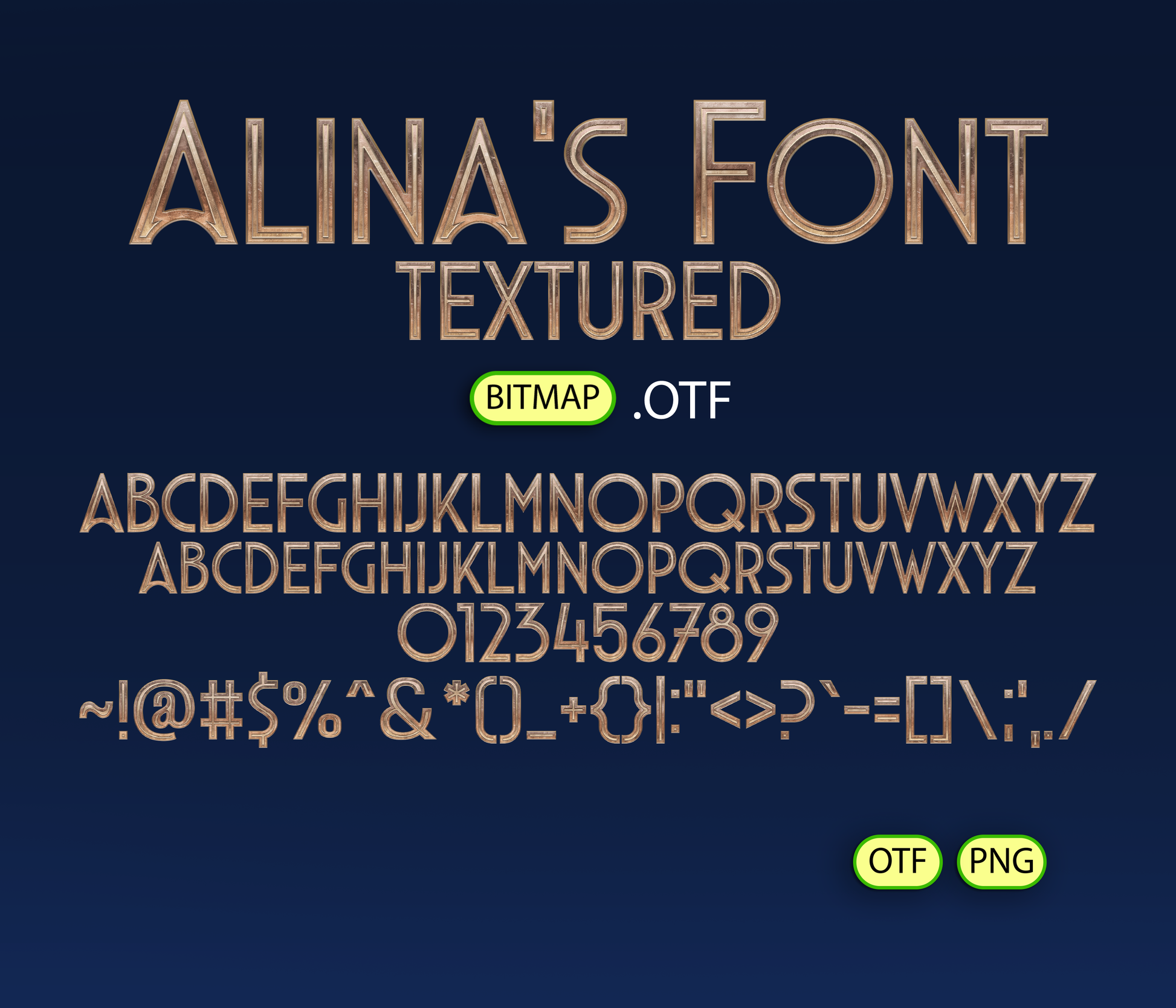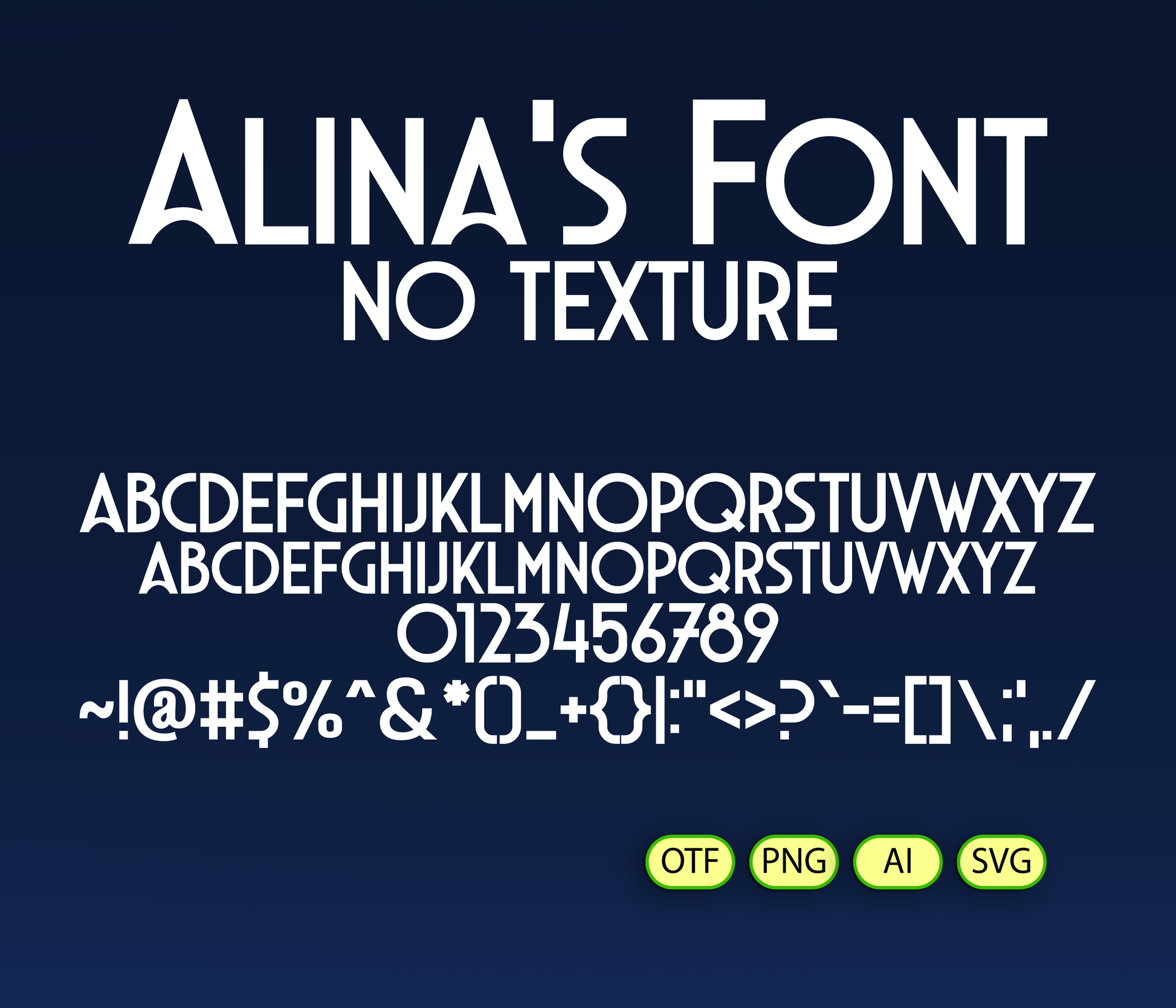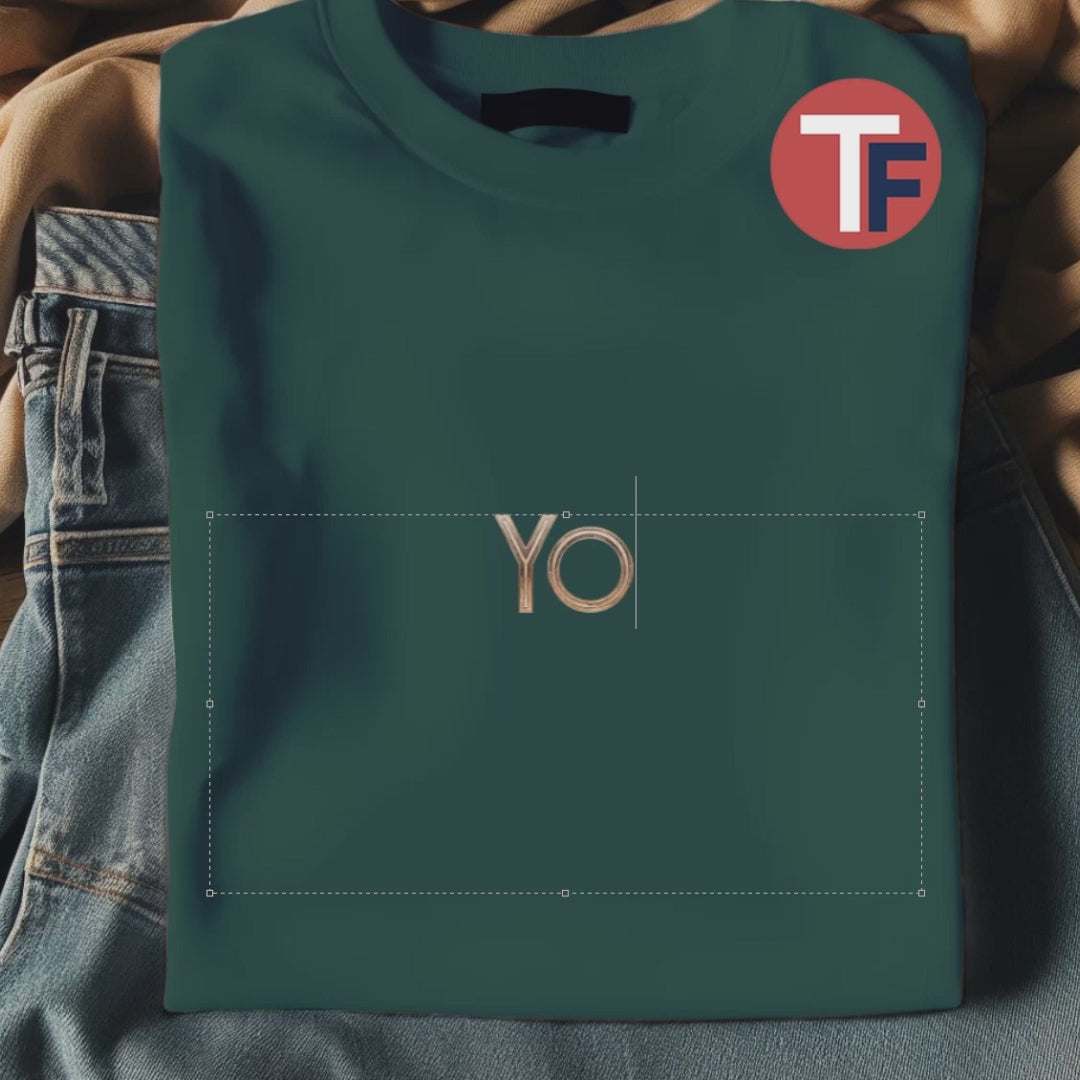
Eldritch Elegance Font Textured
Unleash the Mystique with the Eldritch Elegance Font
Step into the enchanting and mysterious world with our specially designed Eldritch Elegance-inspired font, capturing the essence of critically acclaimed animated series. Perfect for fans, event organizers, and designers looking to infuse their projects with a touch of magic and sophistication, this font brings the rich, atmospheric style of arcane aesthetics to your designs. Whether creating event invitations, designing themed merchandise, or crafting digital content, our Eldritch Elegance font ensures your projects resonate with dark and intricate beauty.
Our Eldritch Elegance-inspired font features elegant, stylized lines and intricate details that reflect the gothic and steampunk aesthetics of the series. This versatile font is ideal for a variety of applications:
- Event Invitations: Perfect for creating captivating invites for themed parties, screenings, or fan gatherings.
- Merchandise Design: Ideal for designing t-shirts, posters, and accessories that capture the essence of eldritch aesthetics.
- Digital Media: Enhance websites, blogs, and social media content with striking headers and graphics.
- Educational Materials: Use in presentations, worksheets, and educational content focused on art, animation, or storytelling.
- Personal Projects: Add a touch of mystique to scrapbooking, DIY crafts, or home decor inspired by eldritch themes.
To ensure maximum usability and flexibility, our Eldritch Elegance-inspired font includes both textured and non-textured variants. The non-textured version is particularly beneficial, ensuring compatibility with all types of software, including Canva. This feature allows users of all skill levels to seamlessly incorporate the font into their designs, enhancing accessibility and ease of use across various digital and print platforms.
Our Eldritch Elegance font not only pays tribute to visually stunning aesthetics but also empowers you to infuse your designs with magical and intricate spirit. Whether crafting promotional materials, designing unique merchandise, or adding a touch of elegance to personal projects, this font allows you to communicate with rich and enigmatic essence. Ready to bring a touch of magic and sophistication to your creative endeavors? This font is your gateway to unlocking a world of artistic and captivating design.